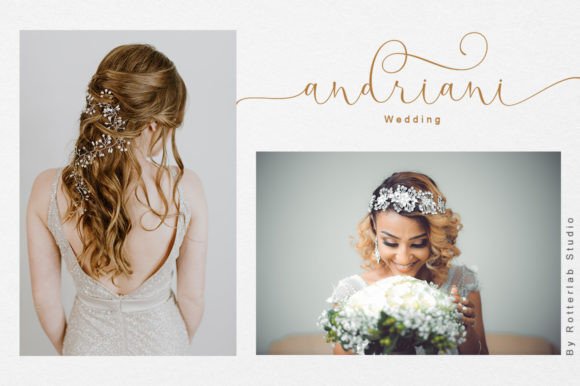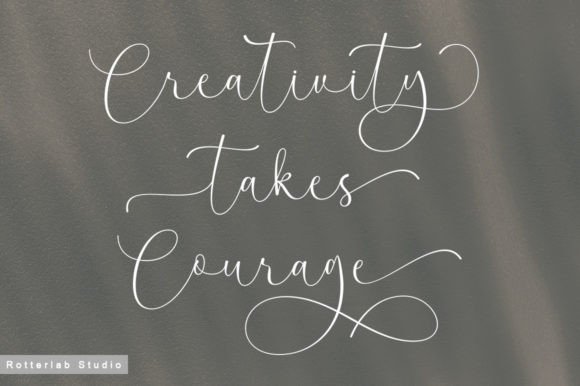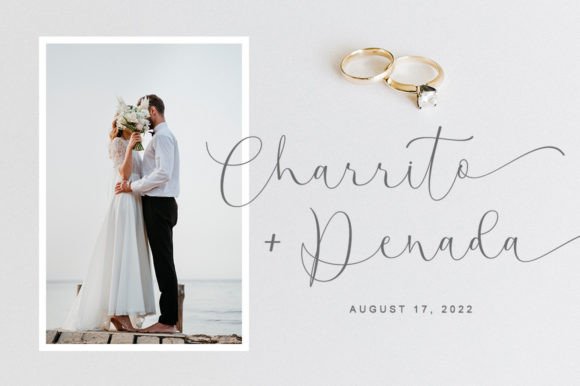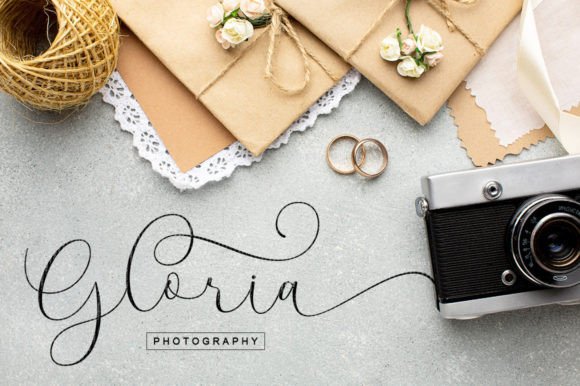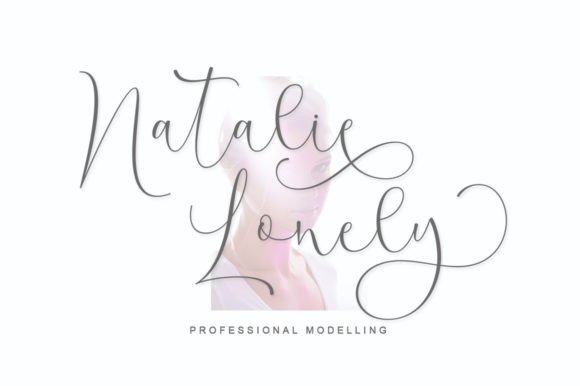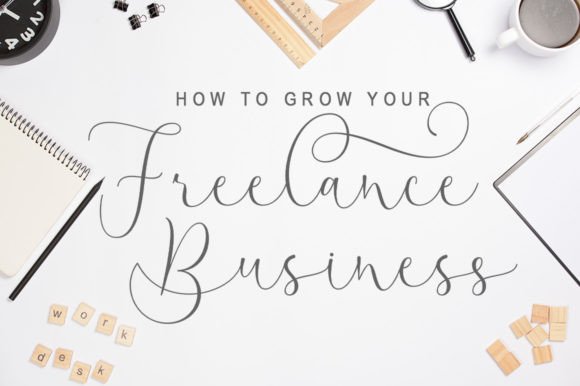
Introducing Branding Autumn Font: Elevate Your Design with Elegant Calligraphy
In the world of design, fonts play a crucial role in conveying the tone and personality of a brand. For those seeking a typeface that exudes elegance and sophistication, look no further than the Branding Autumn Font. This modern calligraphy script font is designed to make your designs stand out, perfect for creating stunning logos, invitations, master heads, and more.
What Makes Branding Autumn Font Special?
The Branding Autumn Font boasts a unique style that sets it apart from other typefaces. Its elegant characters are carefully crafted to add a touch of luxury and refinement to any design. Whether you’re working on a branding project, creating custom stationery, or designing eye-catching posters, this font is sure to impress.
One of the standout features of the Branding Autumn Font is its PUA (Private Use Area) encoding. This means that you can easily access all the glyphs and swashes, giving you greater flexibility and creative control over your designs. With PUA encoding, you can effortlessly insert special characters, ligatures, and alternates to add an extra layer of sophistication to your work.
The versatility of the Branding Autumn Font makes it an excellent choice for a wide range of design applications. Here are just a few examples of how you can use this beautiful font:
- Branding and Logos: Create a lasting impression with a custom logo that showcases your brand’s personality and style.
- Invitations and Stationery: Add a touch of elegance to your wedding invitations, business cards, and letterheads.
- Master Heads and Posters: Make a statement with eye-catching headlines and titles that demand attention.
- Packaging and Product Design: Elevate your product packaging with a sophisticated and modern typeface.
Why Choose Branding Autumn Font?
With so many fonts available, why choose the Branding Autumn Font? Here are just a few reasons why designers and crafters love this typeface:
- Unique and Elegant Style: Stand out from the crowd with a font that exudes sophistication and refinement.
- Ease of Use: PUA encoding makes it easy to access all glyphs and swashes, giving you greater creative control.
- Versatility: Use the Branding Autumn Font for a wide range of design applications, from branding and logos to invitations and packaging.
- High-Quality Design: Each character is carefully crafted to ensure a high level of quality and attention to detail.
Tips for Getting the Most Out of Branding Autumn Font
To get the most out of the Branding Autumn Font, here are a few tips to keep in mind:
- Experiment with Different Sizes: Play around with different font sizes to find the perfect balance for your design.
- Pair with Other Fonts: Combine the Branding Autumn Font with other typefaces to create a unique and visually appealing design.
- Use Swashes and Glyphs: Take advantage of the PUA encoding to add special characters and swashes to your design.
In conclusion, the Branding Autumn Font is a versatile and elegant typeface that’s perfect for designers and crafters looking to elevate their designs. With its unique style, PUA encoding, and high-quality design, this font is sure to become a go-to choice for a wide range of design applications.